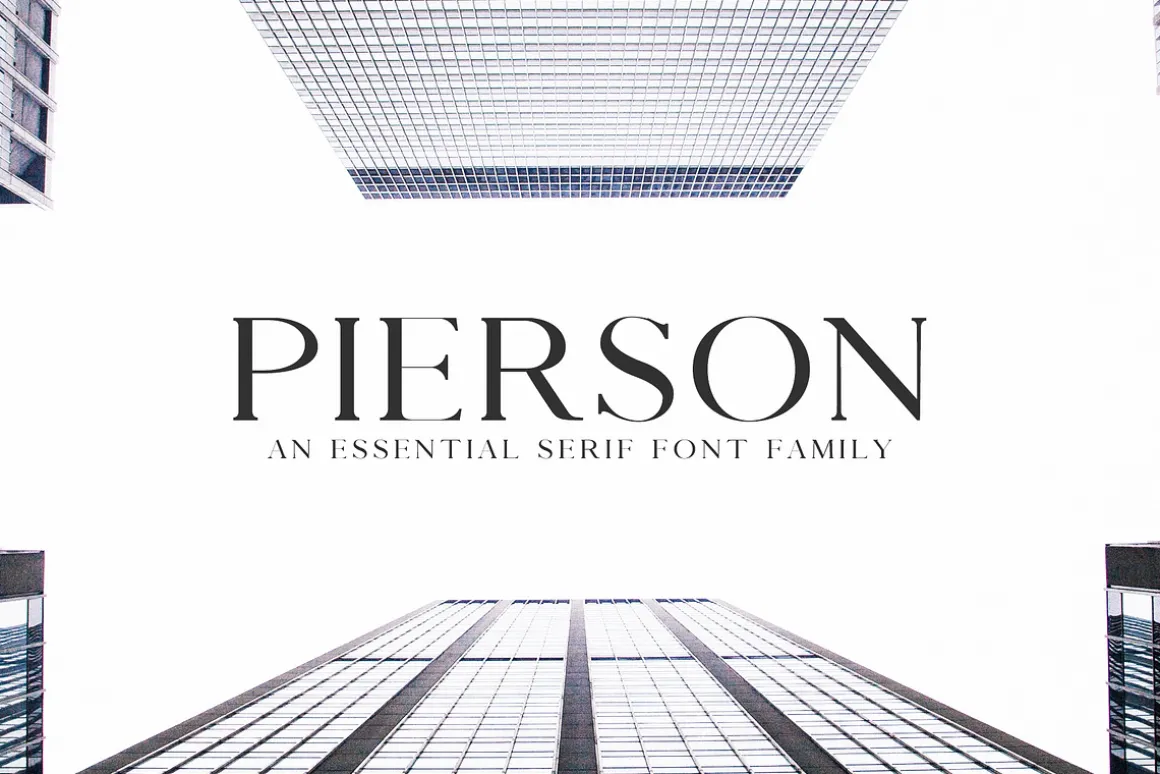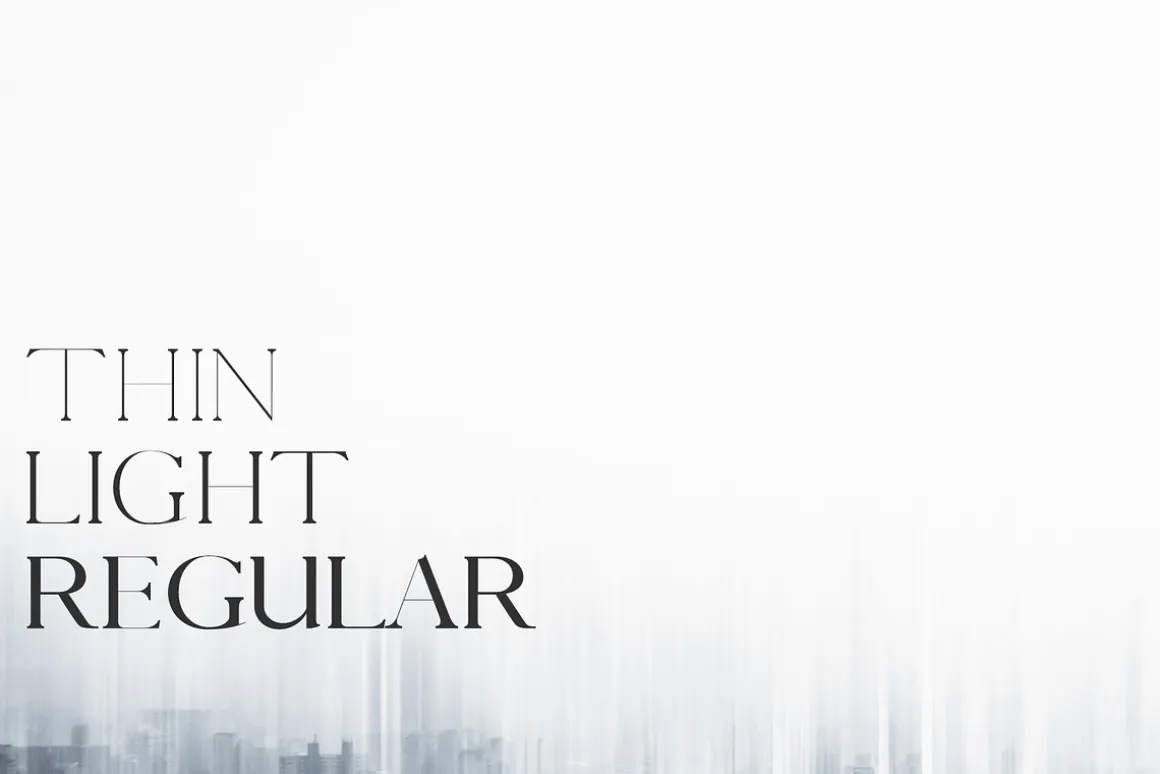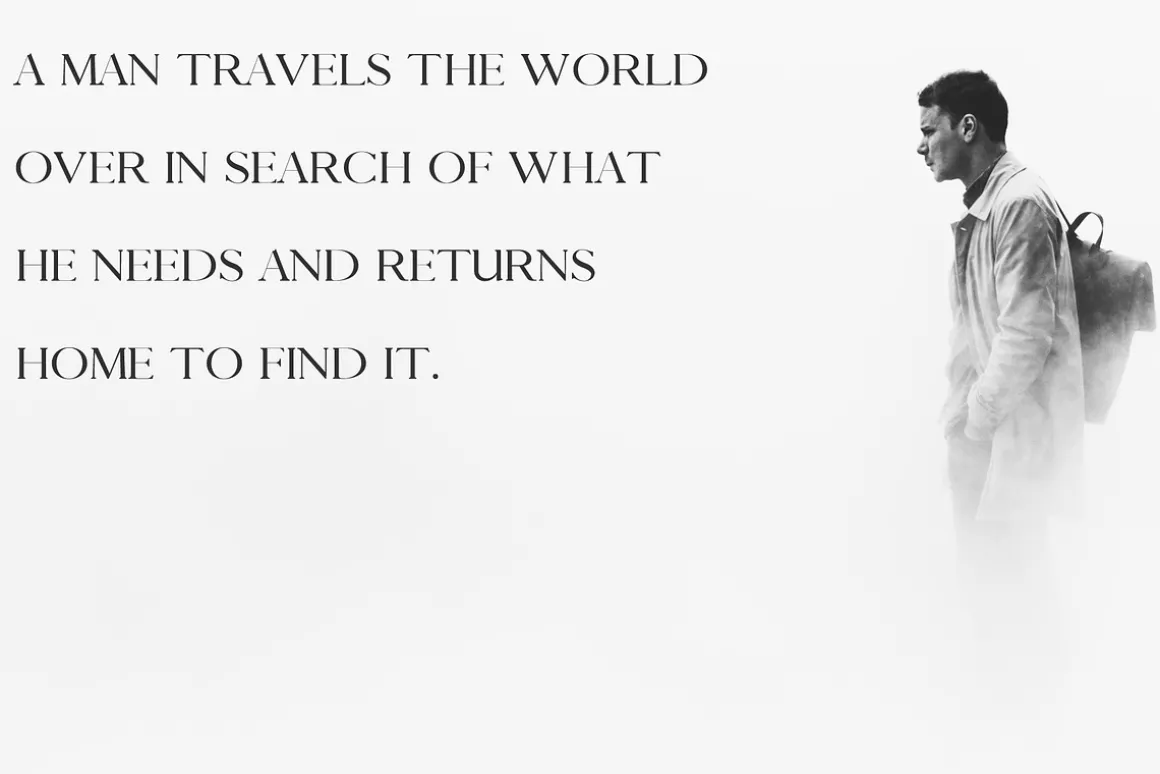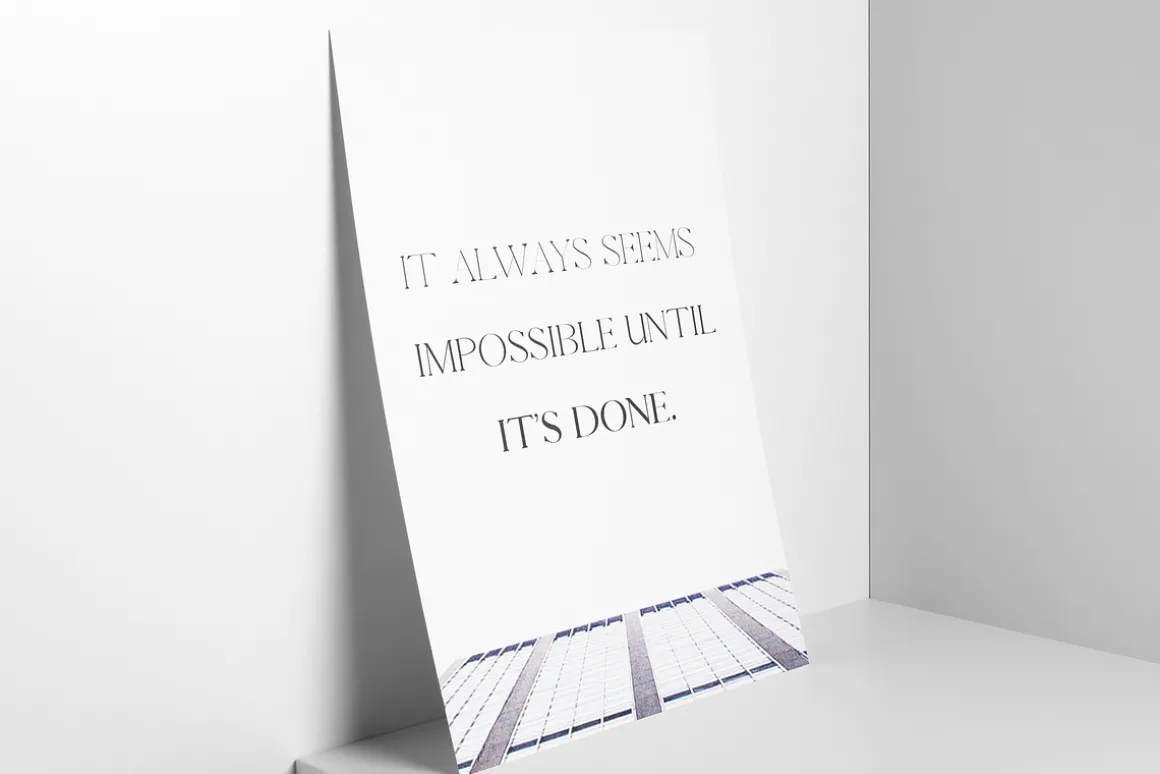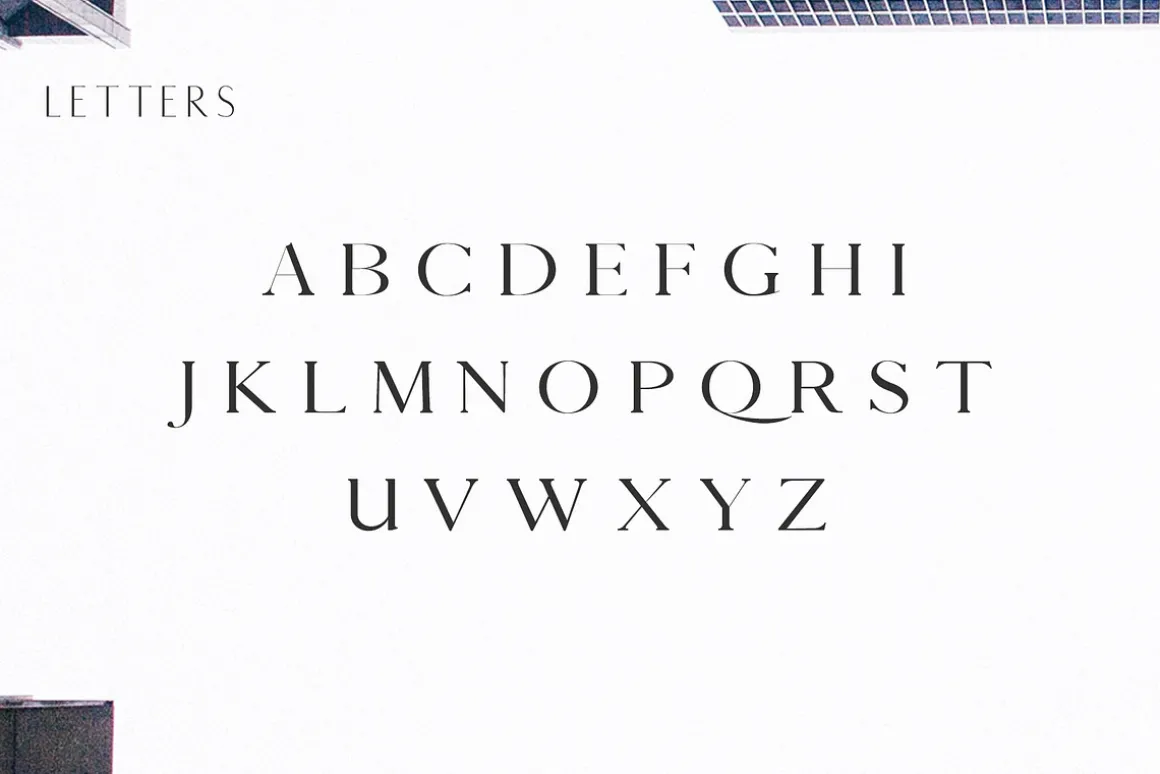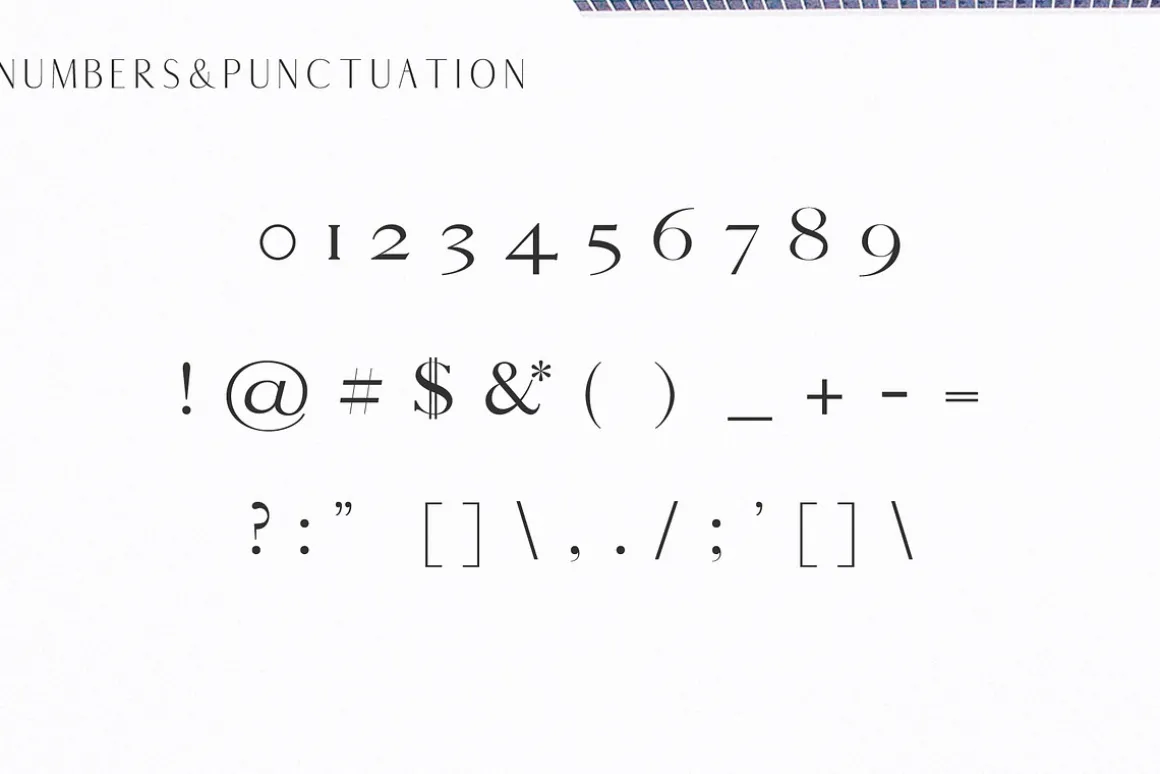
Pierson an essential serif font with 3 different weights. It includes all basic glyphs with Non-English characters.
It can be used for headlines, posters, branding, packaging, presentations, logo, quotes, titles, magazines headings, web layouts, advertising, invitations, packaging design, books,and nearly any creative design.
Included Features:
- Font Weight: Regular, Thin and Light
Pierson Font Features:
- Uppercase Letters
- Lowercase Letters
- Numbers & Punctuation
- Non English Characters ( Latin Supplement + Latin Extended A)